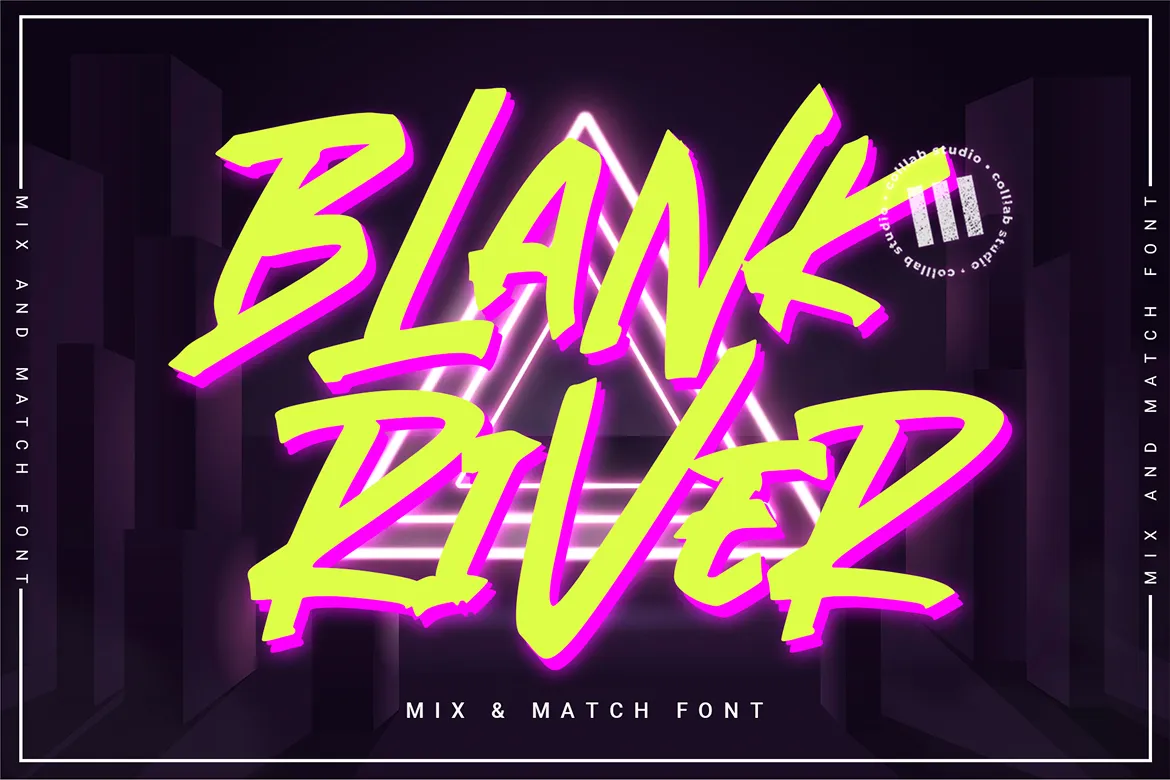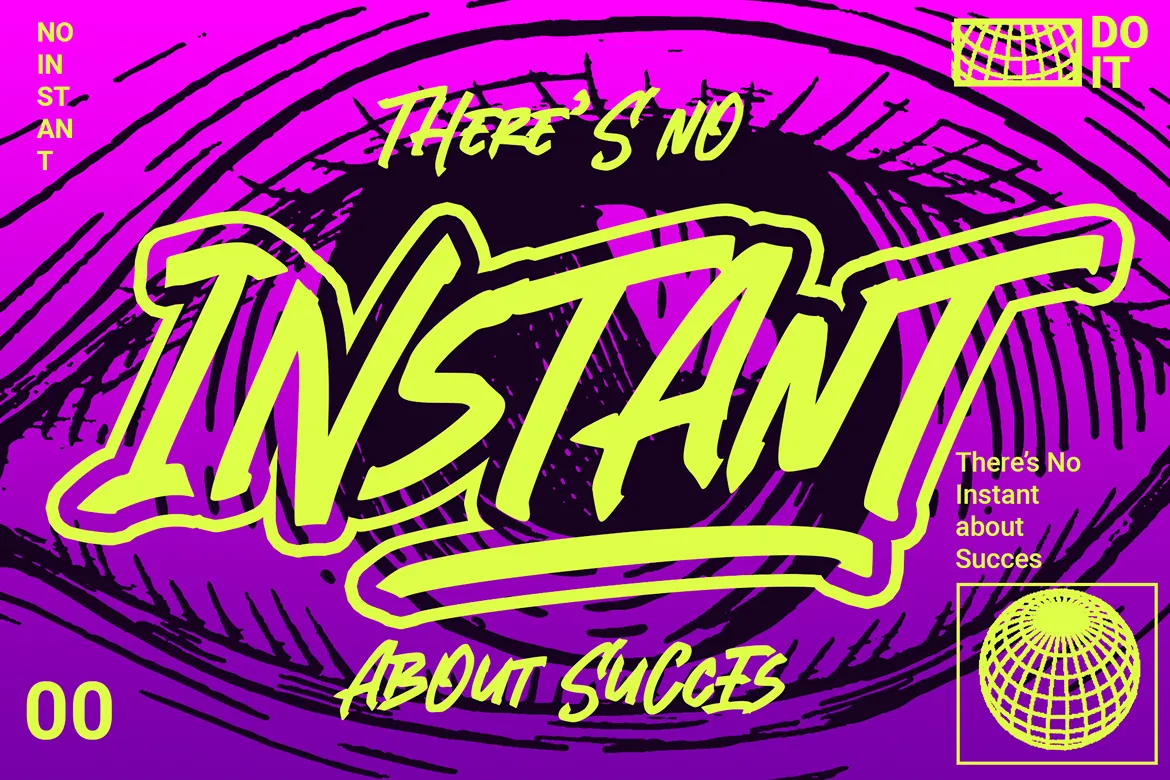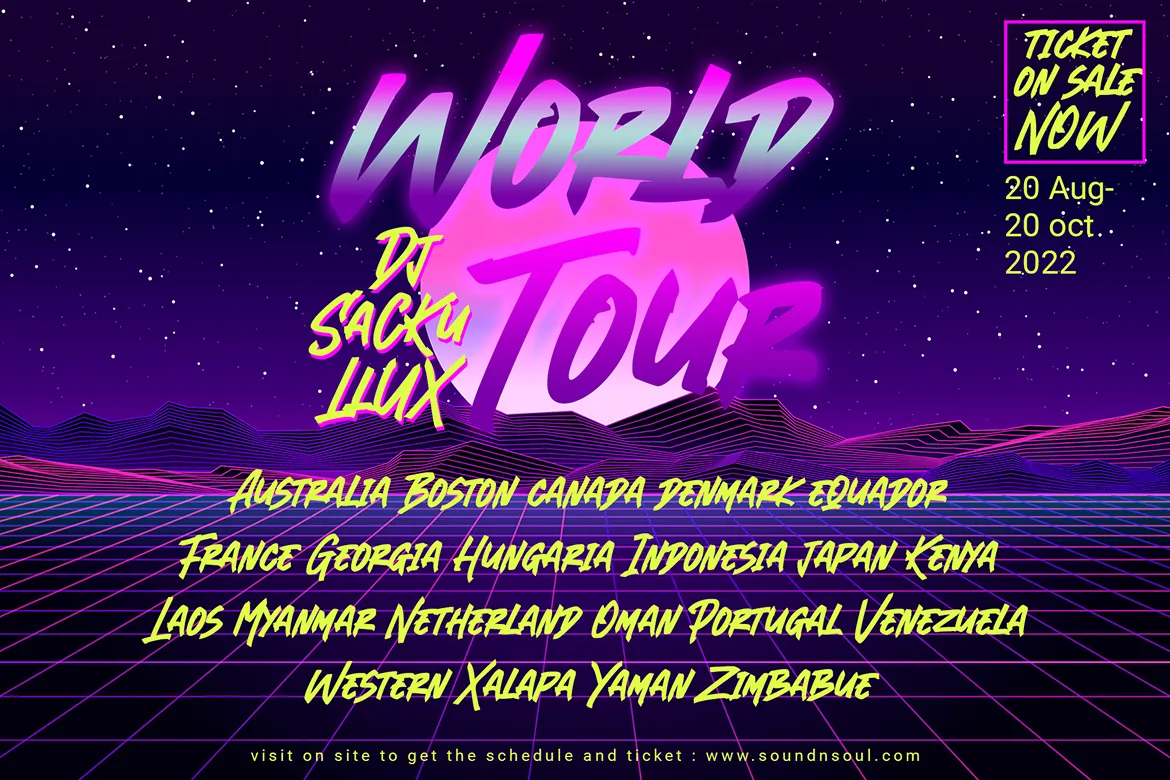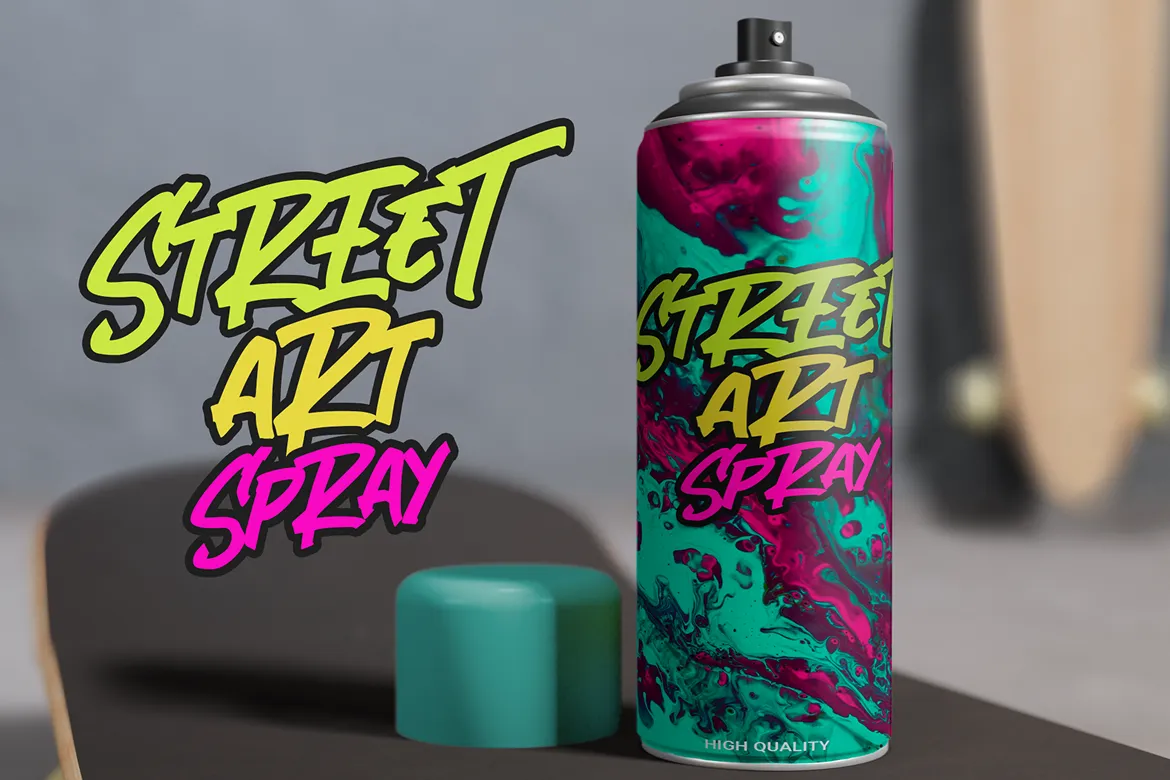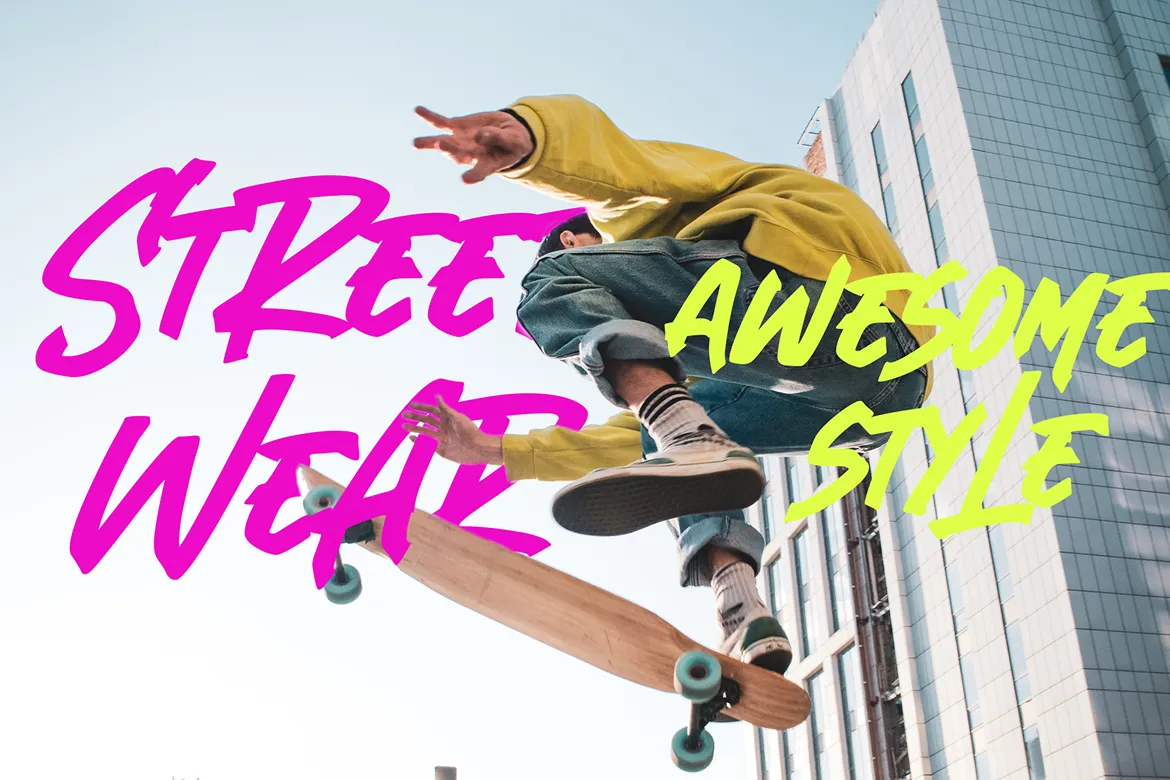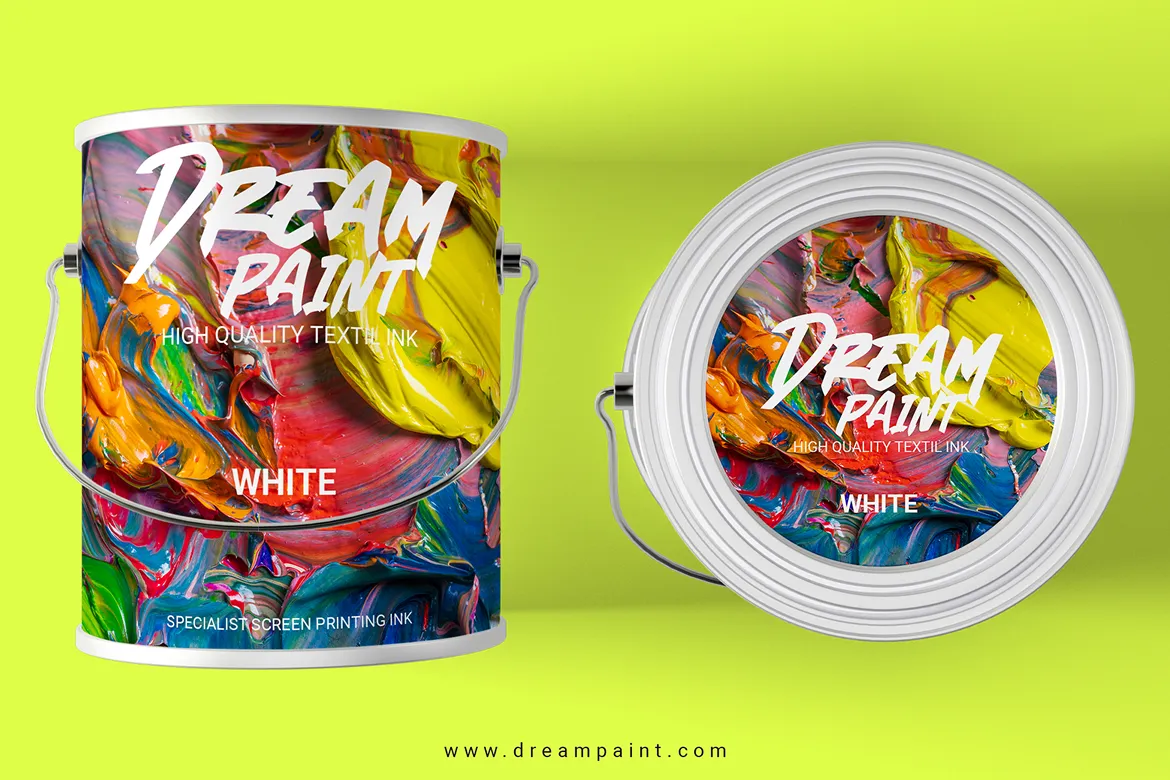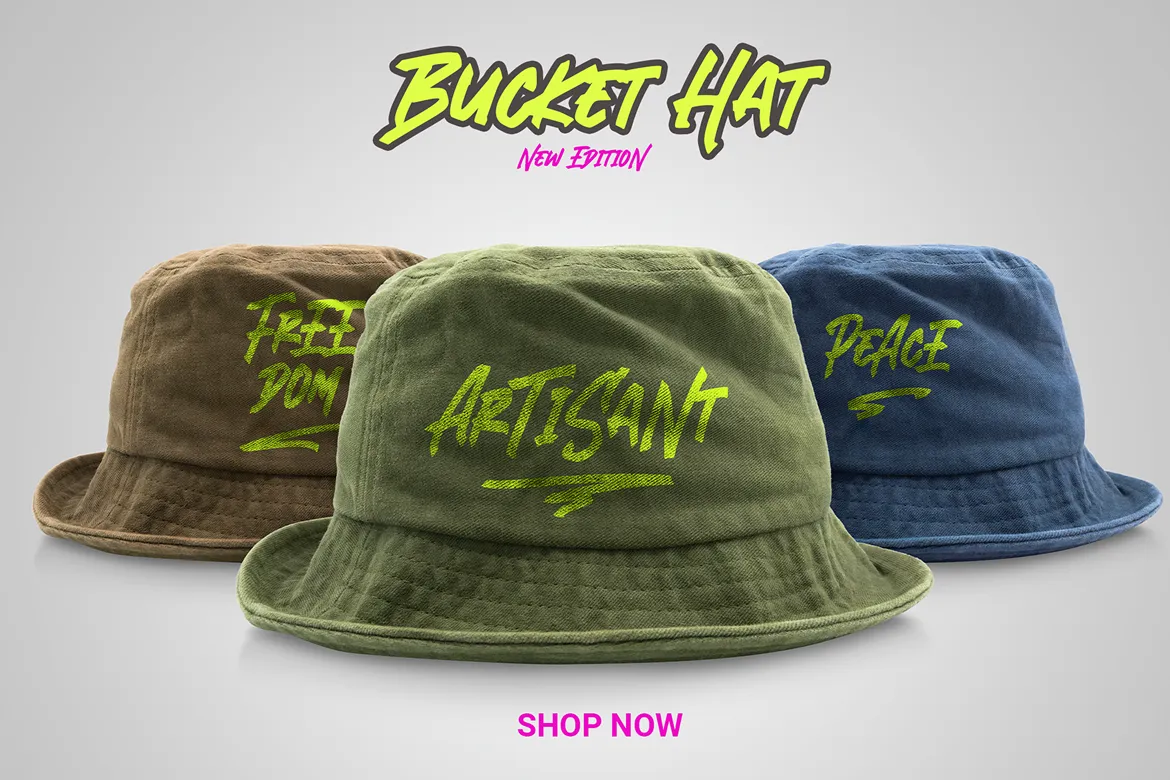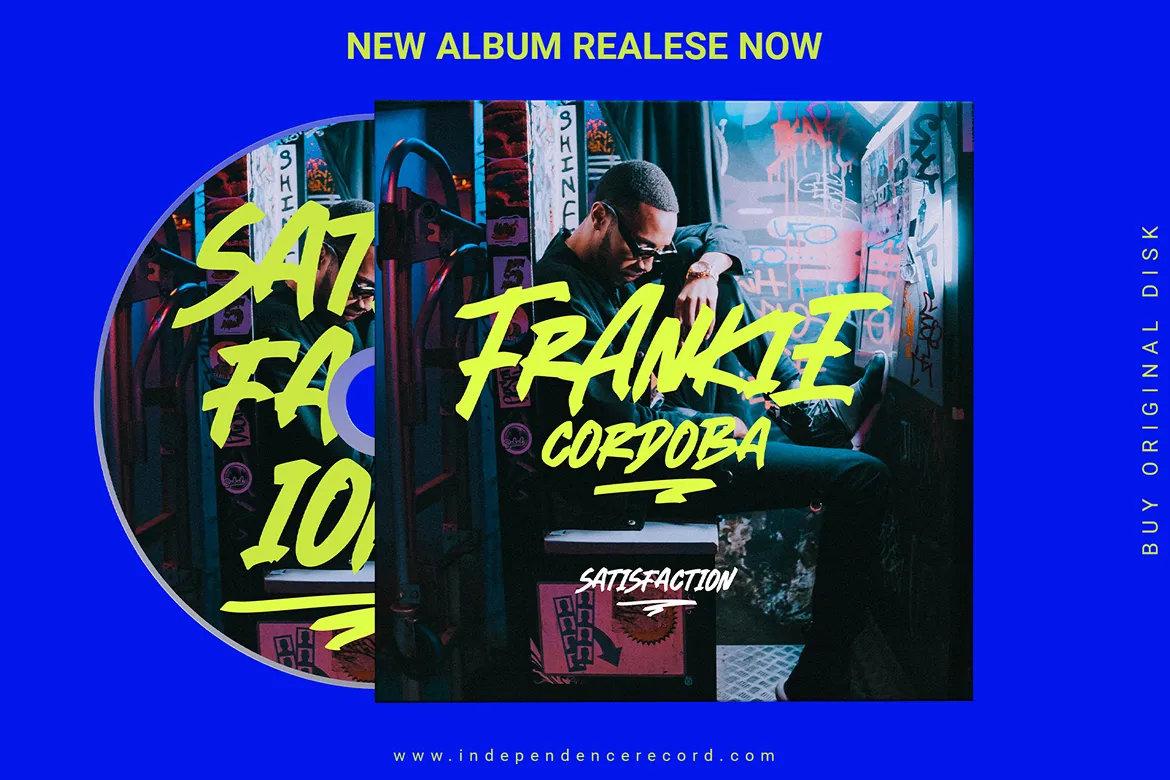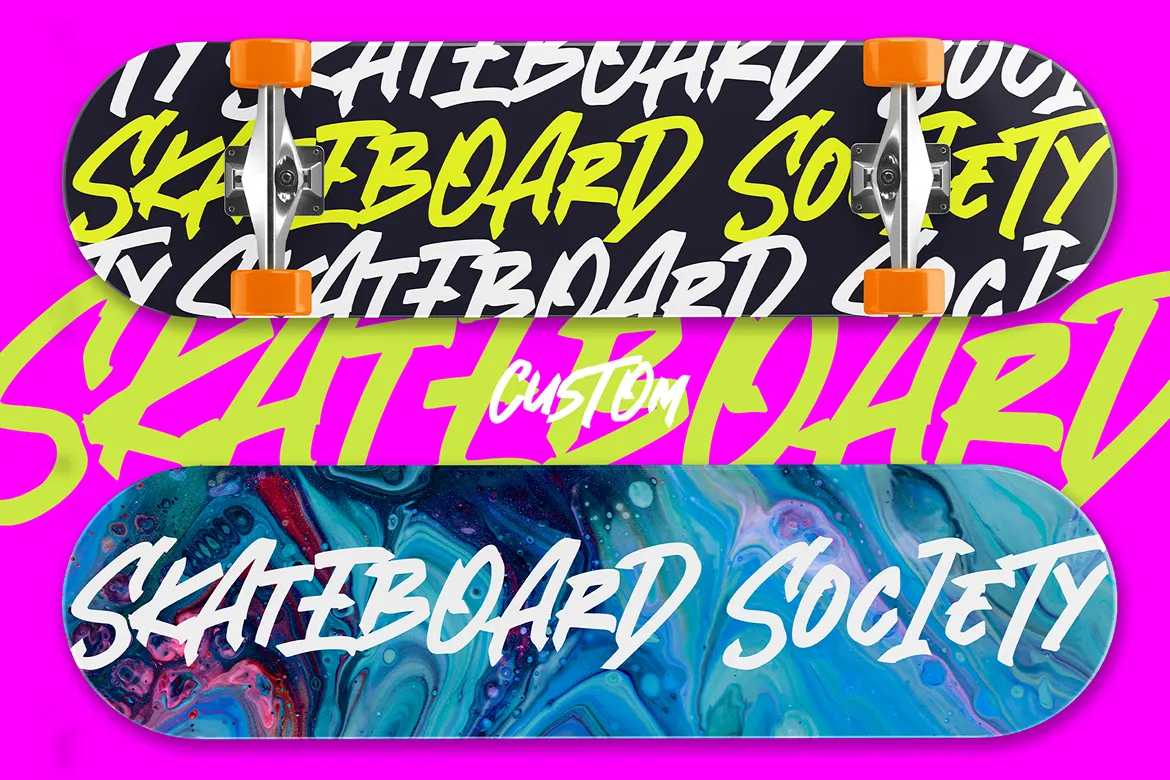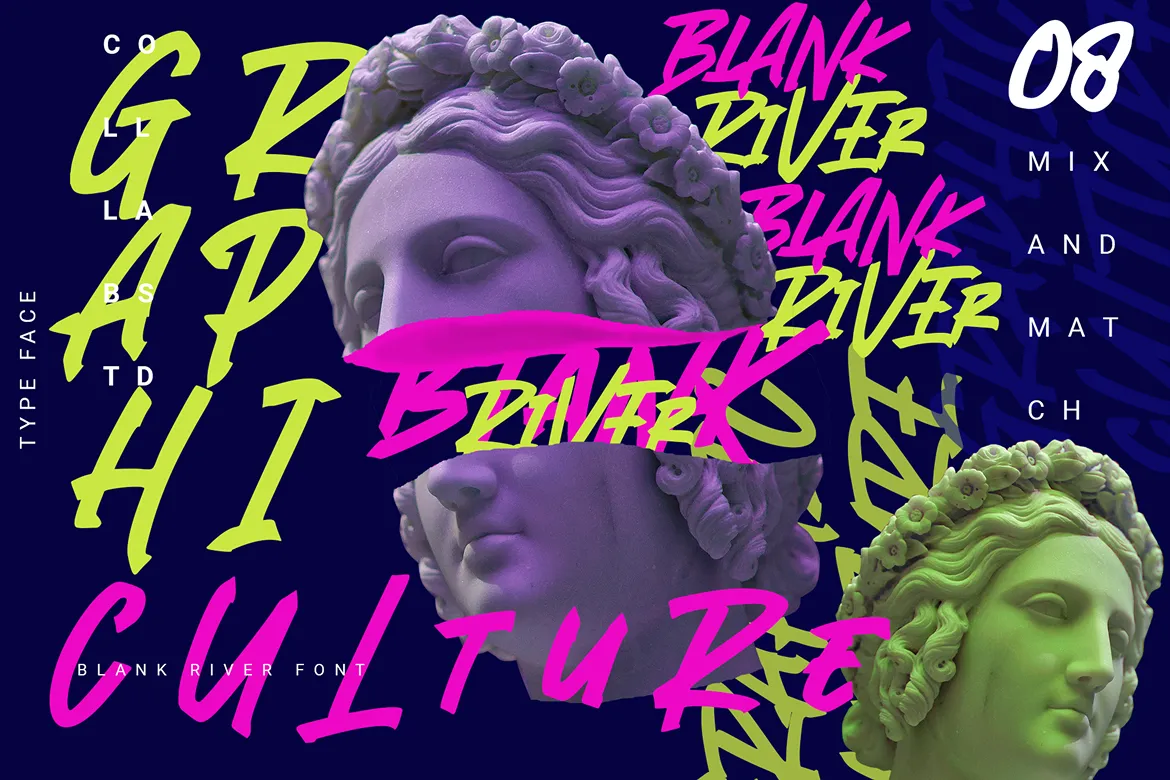
Blank River is a hand-drawn marker font designed with a bold, masculine personality and a playful irregular baseline. Its natural, decorative strokes bring a raw and expressive energy to your designs—perfect for projects that need both edge and character. With swashes, alternates, and a mix-and-match style, Blank River makes it easy to create logos, headlines, and layouts that feel authentic, trendy, and attention-grabbing.
Whether you’re working on a brand identity, graffiti-inspired design, or social media graphics, Blank River adds that handwritten touch that feels real, unique, and unforgettable.
Full uppercase & lowercase characters
Numbers & punctuation
Decorative swashes for added flair
Multilingual support for global use
Blank River combines the authenticity of hand-drawn strokes with the versatility of a professional typeface. Its irregular baseline creates a lively rhythm, while the bold, marker-inspired design ensures your text will stand out in any medium. It’s not just a font—it’s a creative tool that injects personality into every project.